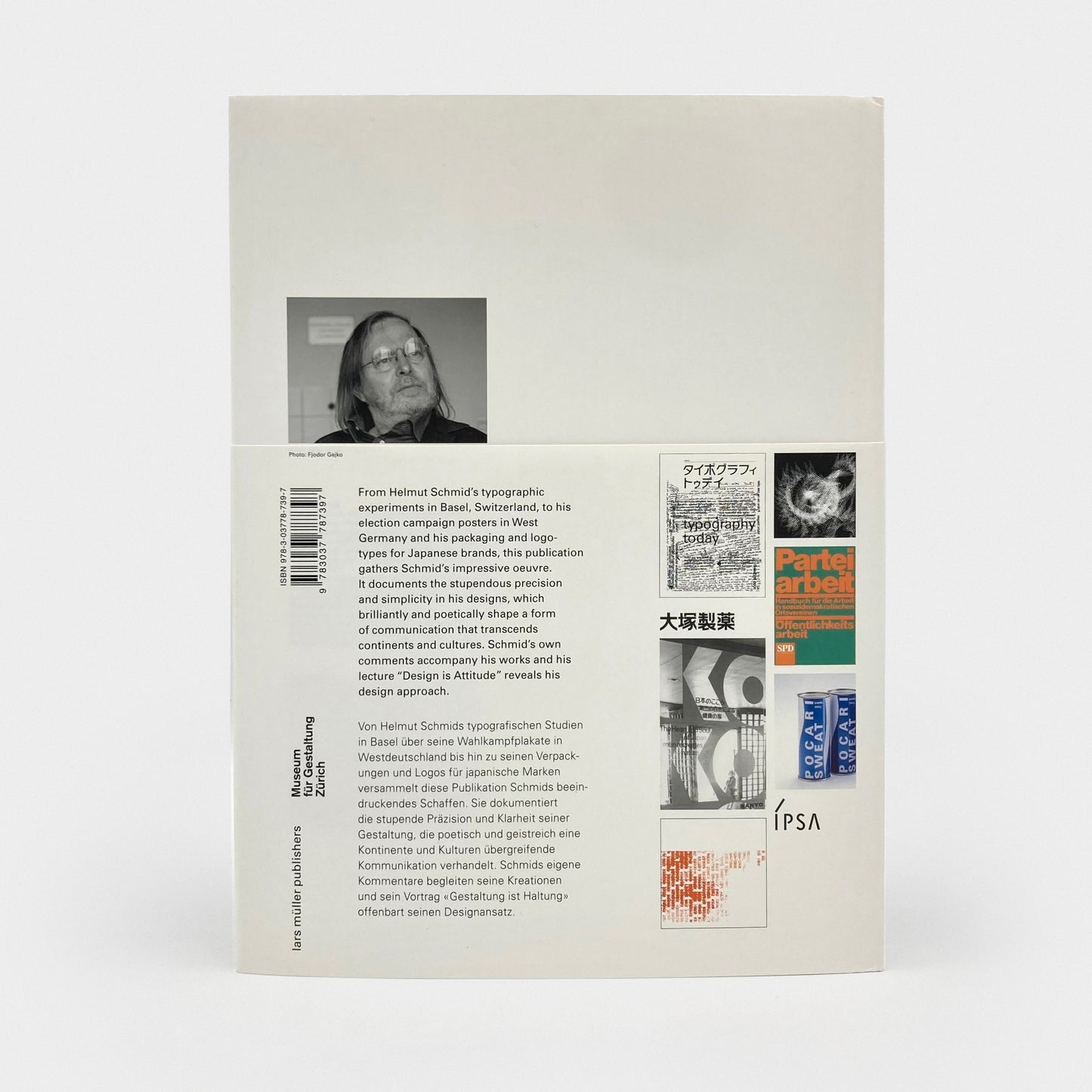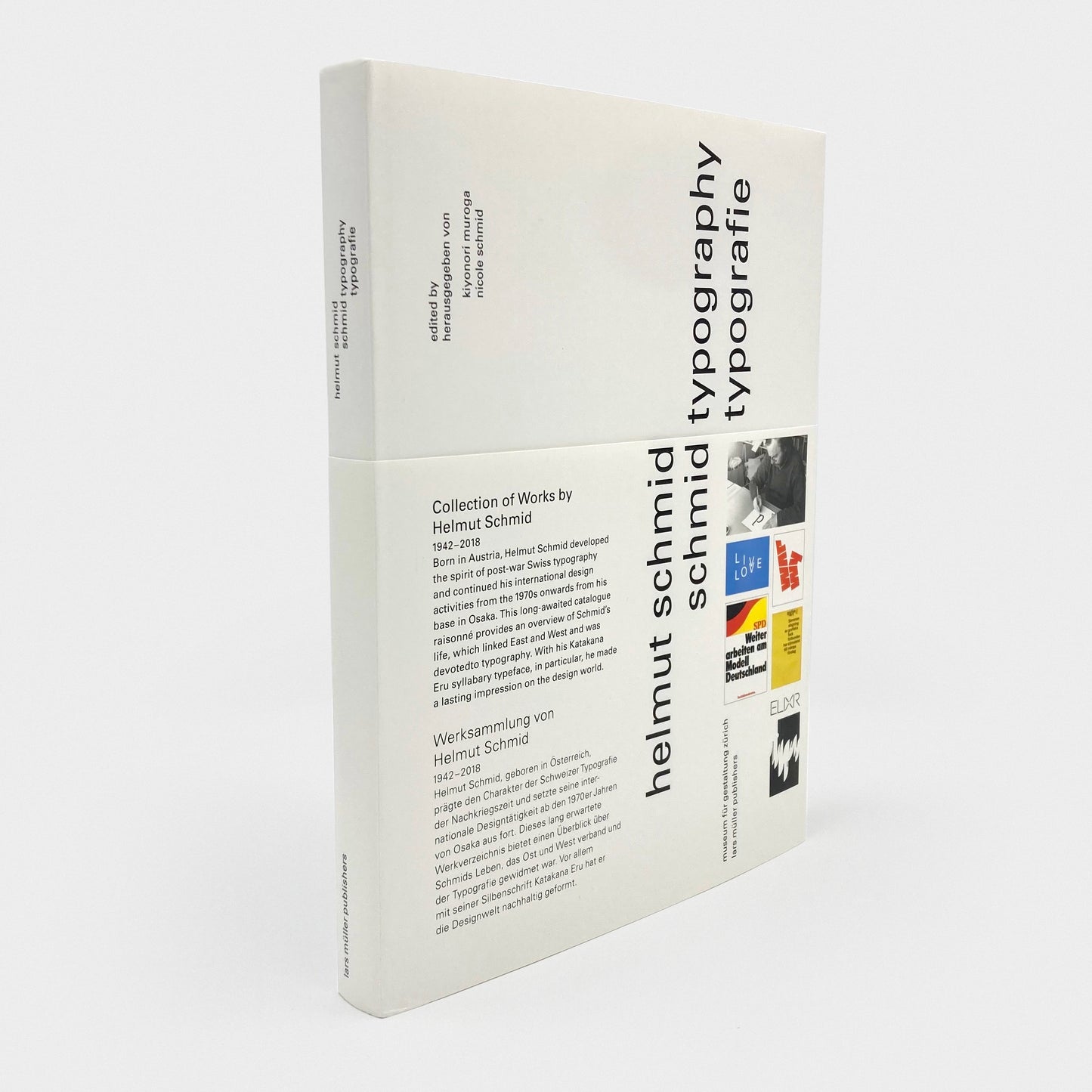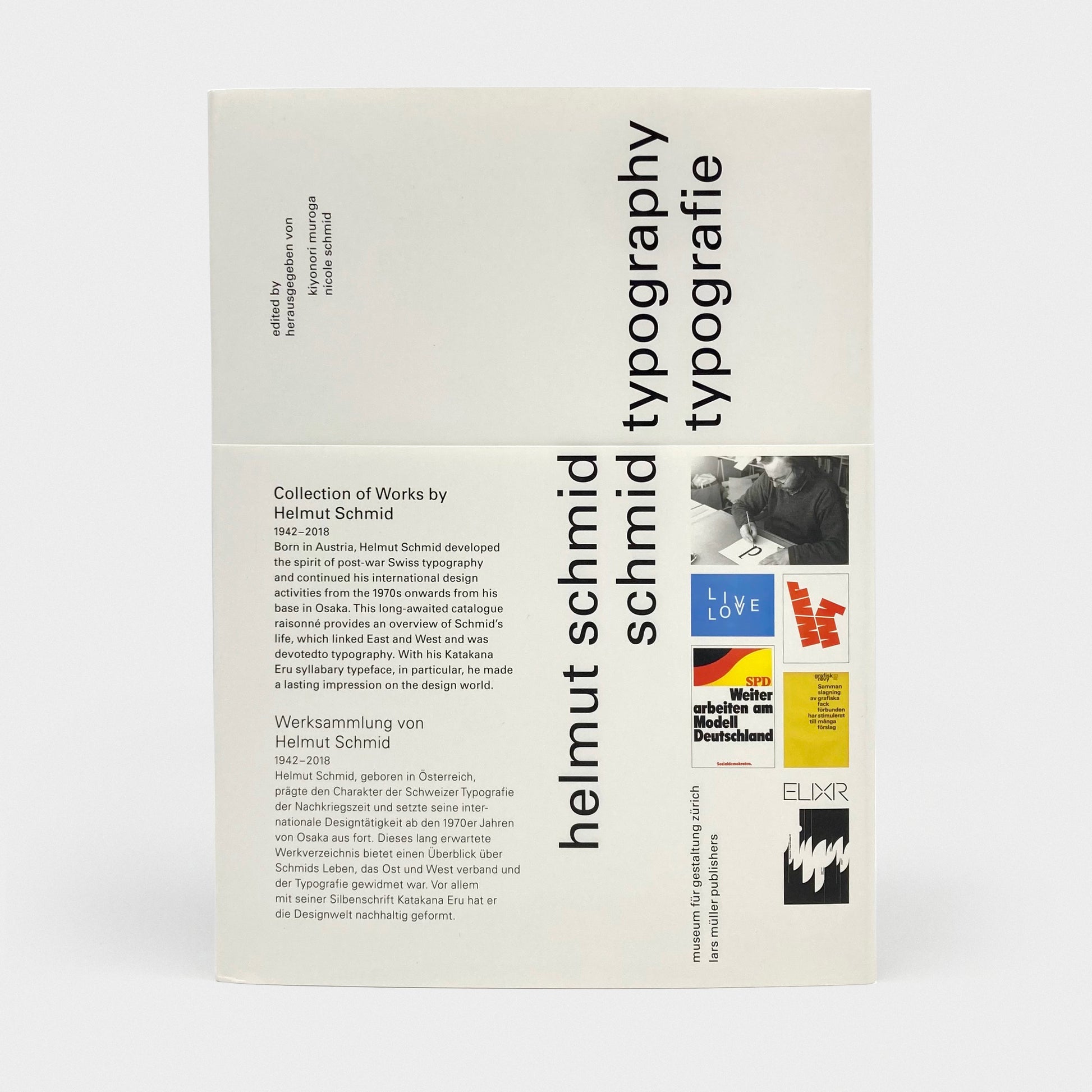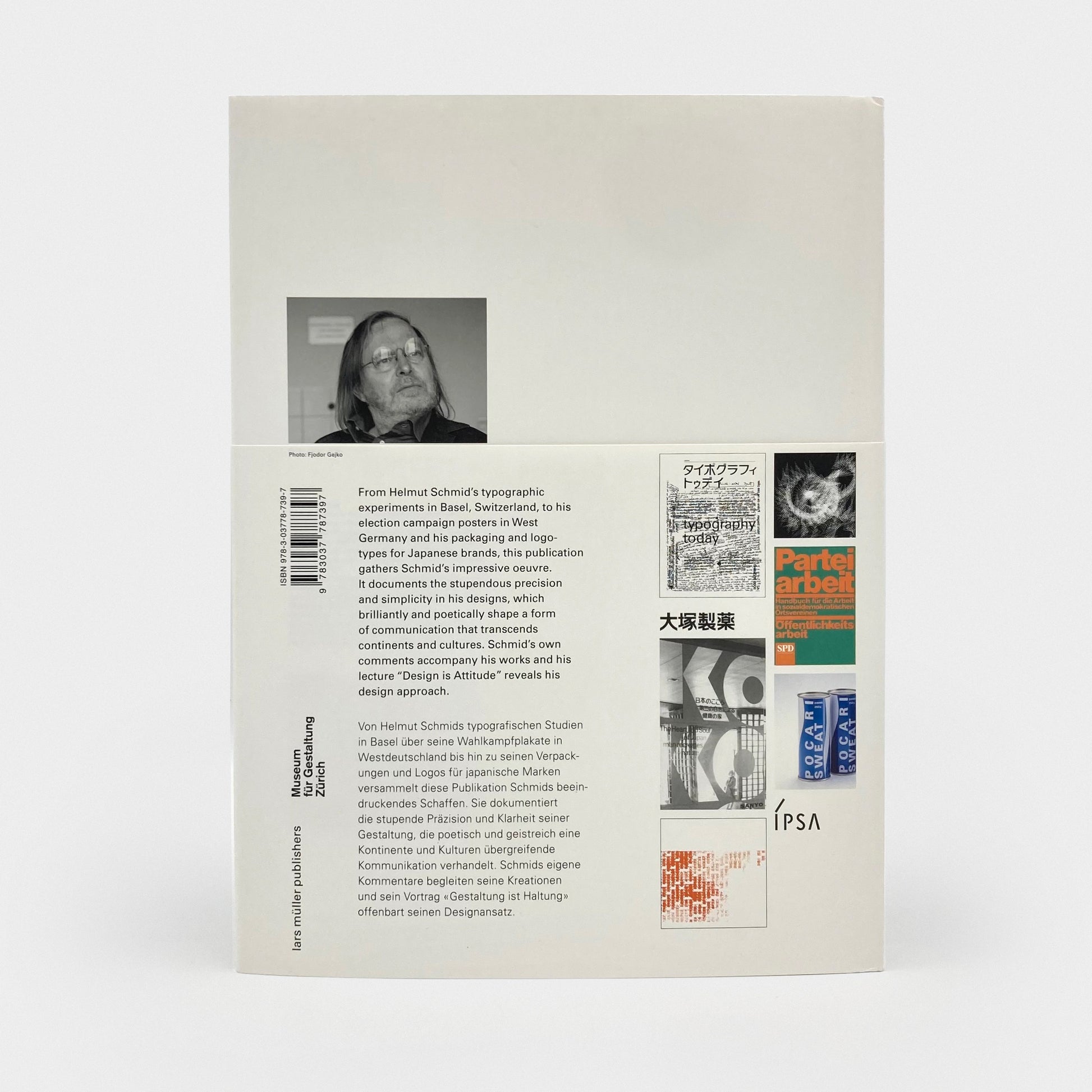
Helmut Schmid Typography (Helmut Schmid Typografie)
Helmut Schmid was a master of his craft. The Austrian typographer put his own spin on Emil Ruder’s teachings at the Basel School of Design while remaining faithful to the principles of clarity, simplicity and elegance. Blending eastern and western influences, Schmid honed his skills and put them into practice in the fields of editorial design, packaging of ethical drugs and the visual identity of brands such as Pocari Sweat sports drink (Otsuka Pharmaceutical), Maquillage (Shiseido) and IPSA. He also produced publications, such as the famous journal “Typographic Reflections.”
Helmut Schmid Typography explores the typographer’s oeuvre in its entirety. The book’s generous design allows each image to breathe, and the accompanying texts narrate Schmid’s life and career in an informative and pleasant manner. Complementing the publications Weingart: Typography and Ruder Typography, Ruder Philosophy, this bilingual monograph completes the Basel school of typographic thought.